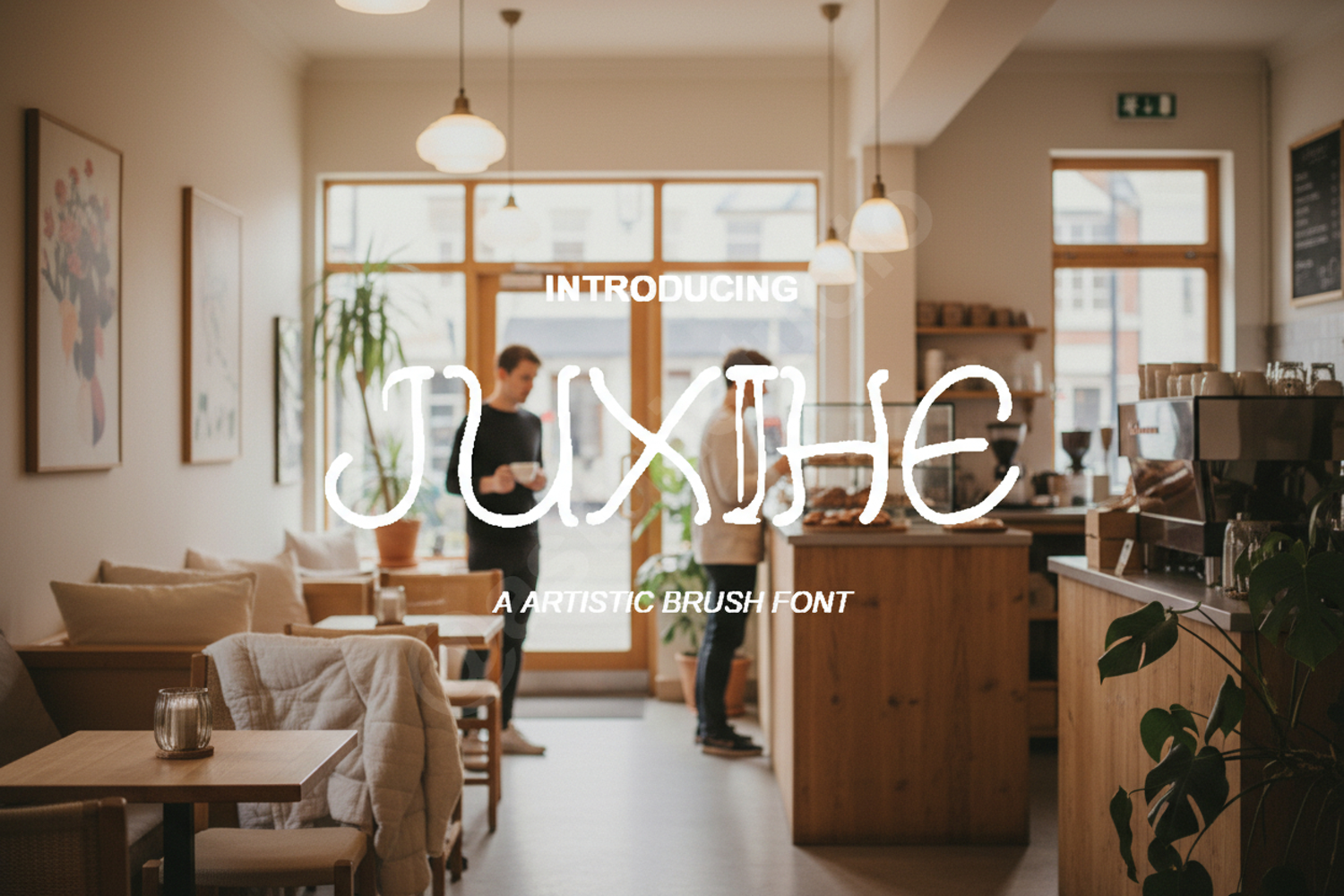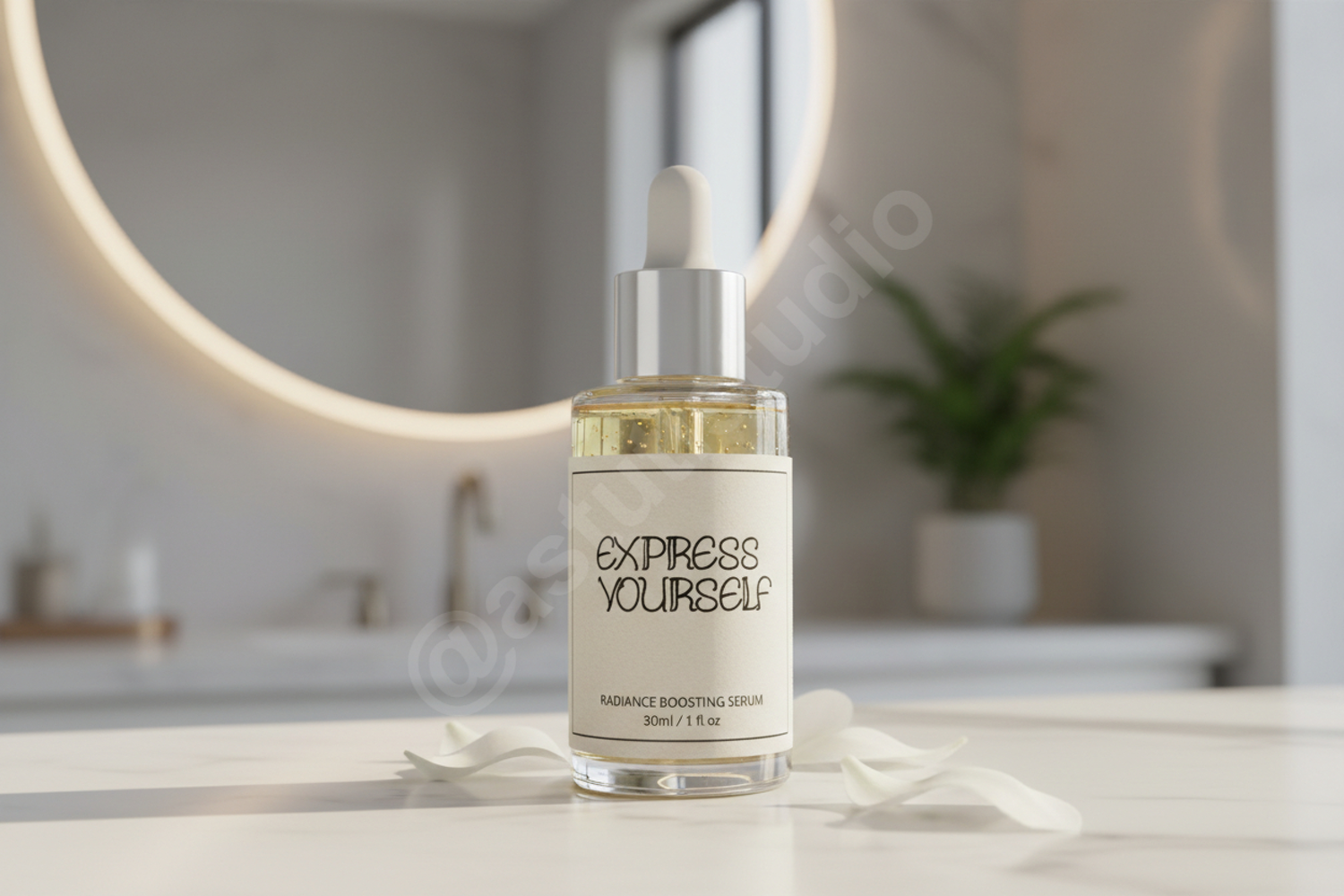
Juxihe - Elegant Modern Serif Display Font
Juxihe
Experience the perfect blend of sophistication and contemporary design with Juxihe. This premium serif font is meticulously crafted to bring a touch of luxury and class to any creative project. With its clean lines and unique character shapes, Juxihe stands out as a versatile choice for designers seeking a professional and high-end aesthetic.
- Premium Branding and Identity Design: Create memorable logos and brand marks that exude quality.
- Wedding and Event Stationery: Perfect for elegant invitations, menus, and place cards.
- Editorial and Magazine Layouts: Add a sophisticated touch to headings and pull quotes.
- Luxury Packaging: Enhance product shelf appeal with high-end typography.
- Social Media Graphics: Elevate your digital presence with clean and stylish text overlays.
- Professional Presentations: Ensure your message is delivered with clarity and elegance.